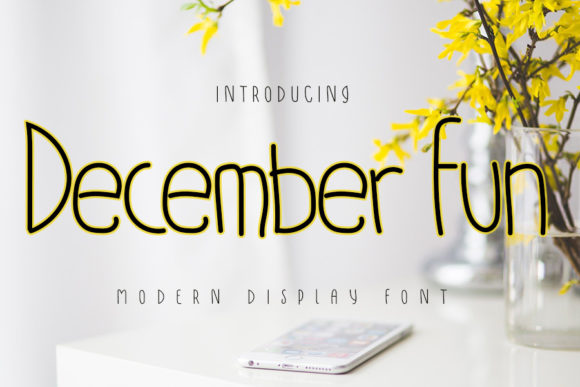
**Introducing December Fun: The Enchanting Font for Whimsical Creations**
Prepare to ignite your imagination with December Fun, a charming and playful display font that will captivate your audience. This font, meticulously crafted by the talented Eddygoodboy, oozes a whimsical aura that is perfect for any design project aimed at children or those seeking a touch of lightheartedness.
December Fun's unique character lies in its delightful imperfections. Its slightly sloppy and quirky lines evoke a sense of childlike wonder, making it ideal for designs that target young minds. This font is not simply a tool for conveying words; it is a conduit for expressing joy, creativity, and the boundless imagination of children.
Whether you're creating invitations for a birthday party, designing posters for a children's theater production, or simply adding a touch of whimsy to your personal creations, December Fun is the perfect choice. Its versatility knows no bounds, allowing you to infuse a spark of magic into any project.
By incorporating December Fun into your designs, you'll not only create visually appealing content but also evoke a sense of nostalgia and childlike innocence. It's the font that will make your creations stand out, leaving a lasting impression on your audience.
So, embrace the magic of December Fun today and let your imagination soar to new heights. With this enchanting font at your disposal, you'll have the power to create designs that ignite smiles, evoke laughter, and bring joy to all who behold them.